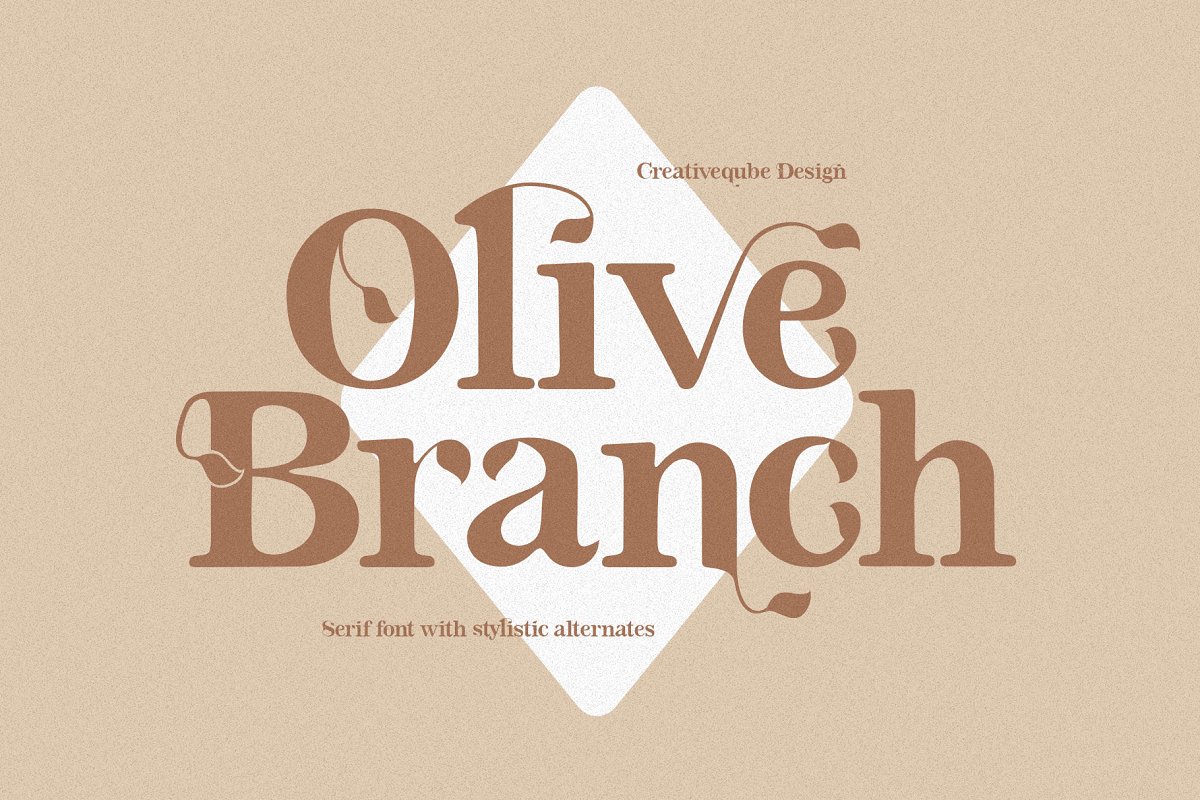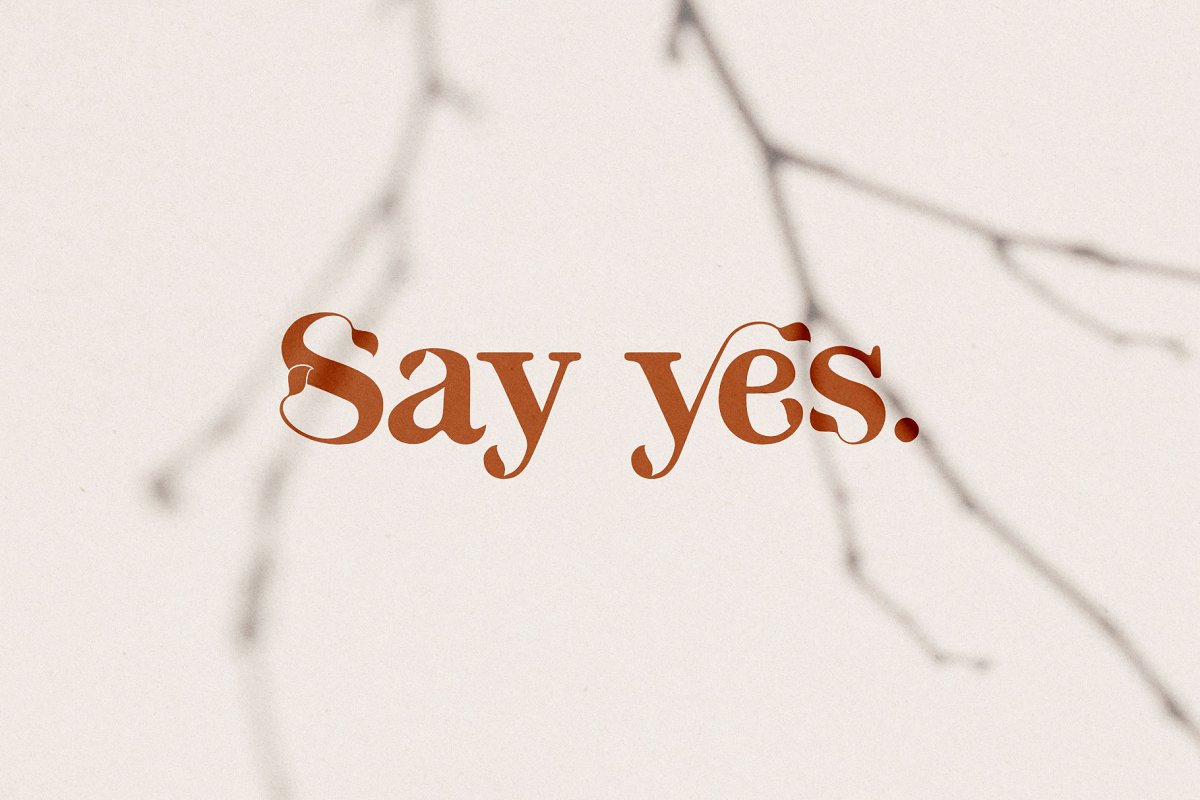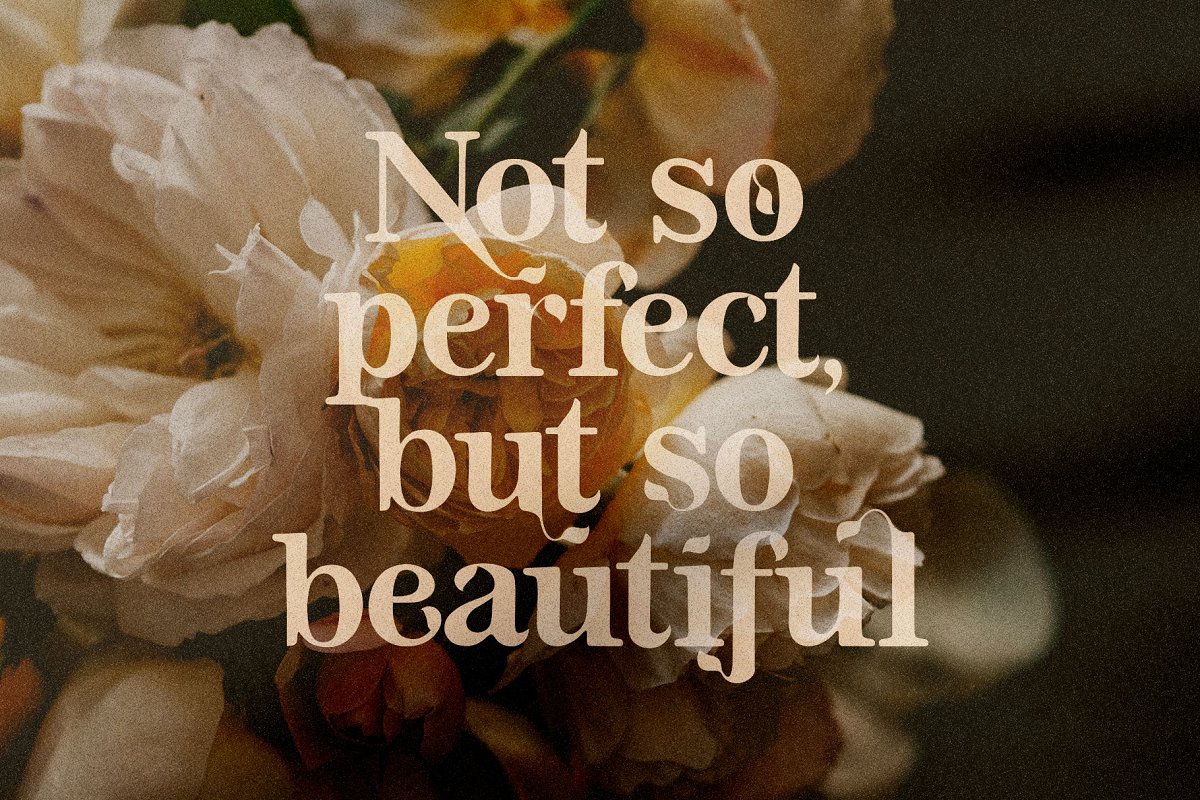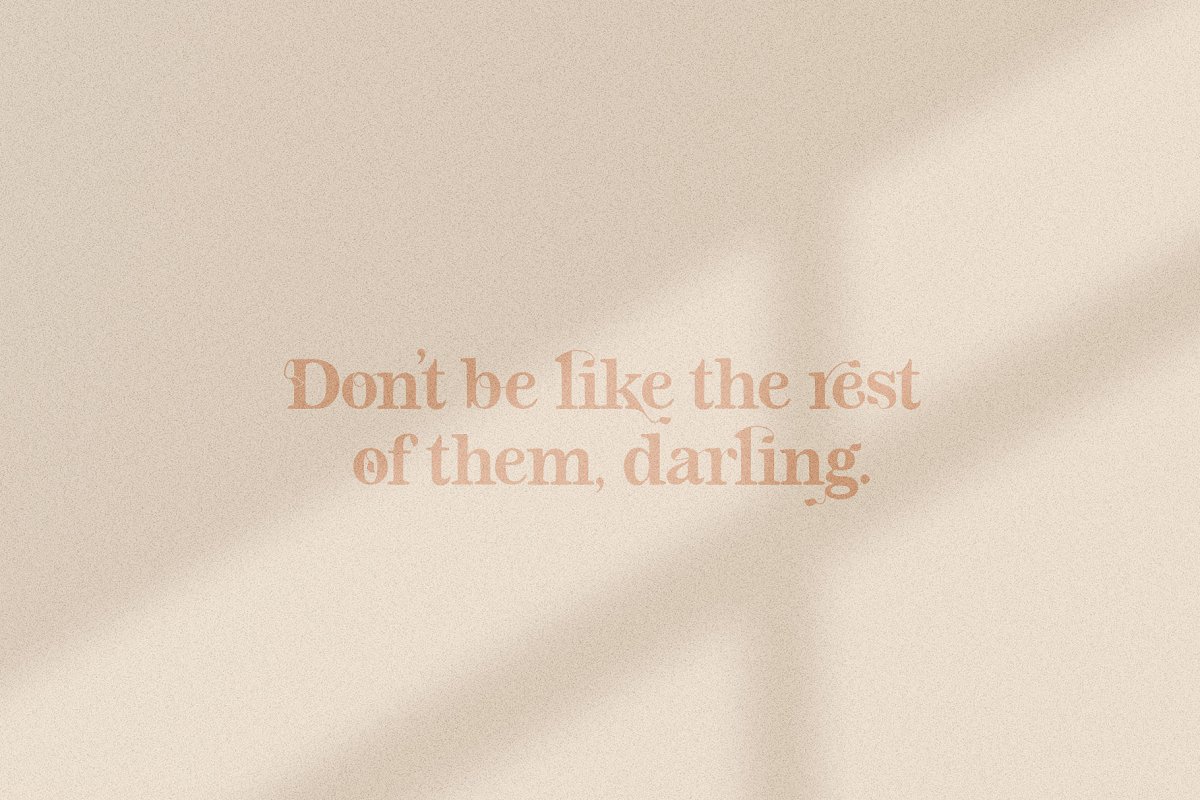
About the Olive Branch Serif Font
Olive Branch is a modern vintage serif font loaded with alternates and ligatures that makes for stunning logos, quotes, wedding invites, blog posts, Instagram, and more! Olive Branch includes a full set of lowercase and uppercase alternates for each letter, plus some extra ending letters, and a bunch of special ligatures, Includes:OTF + TTF filesWeb font file (